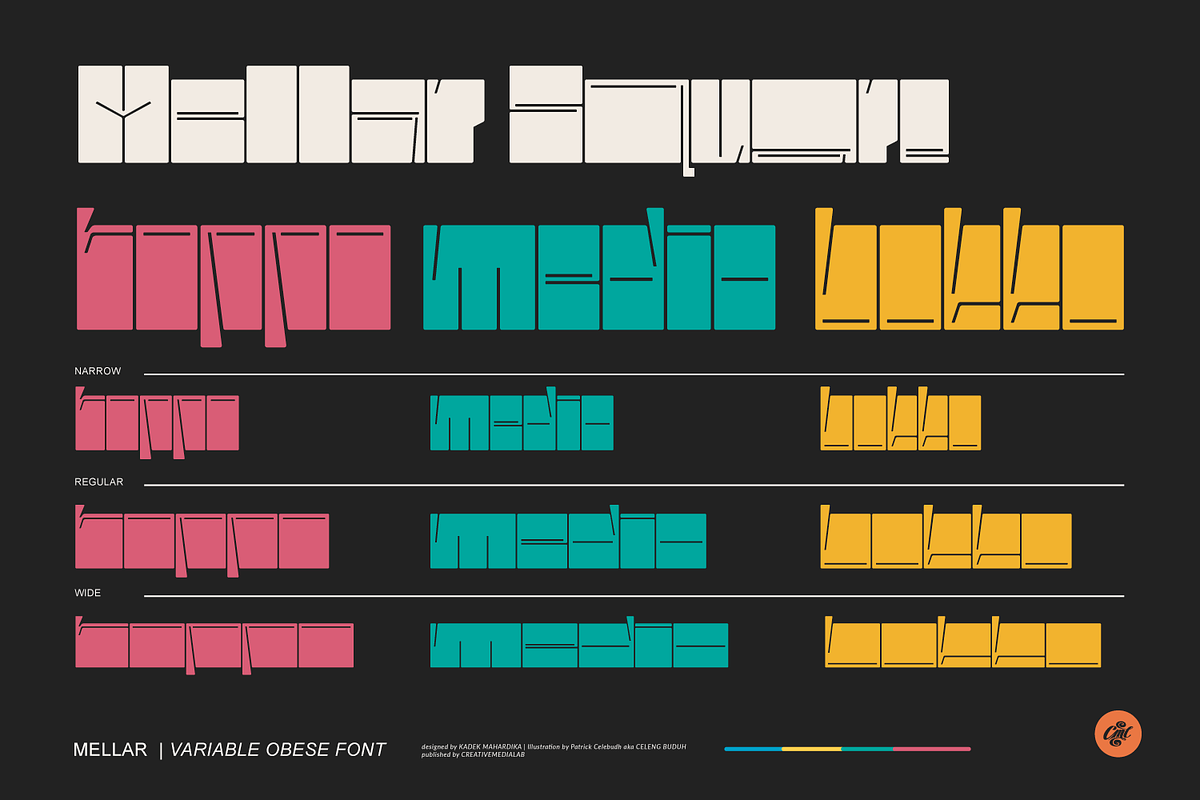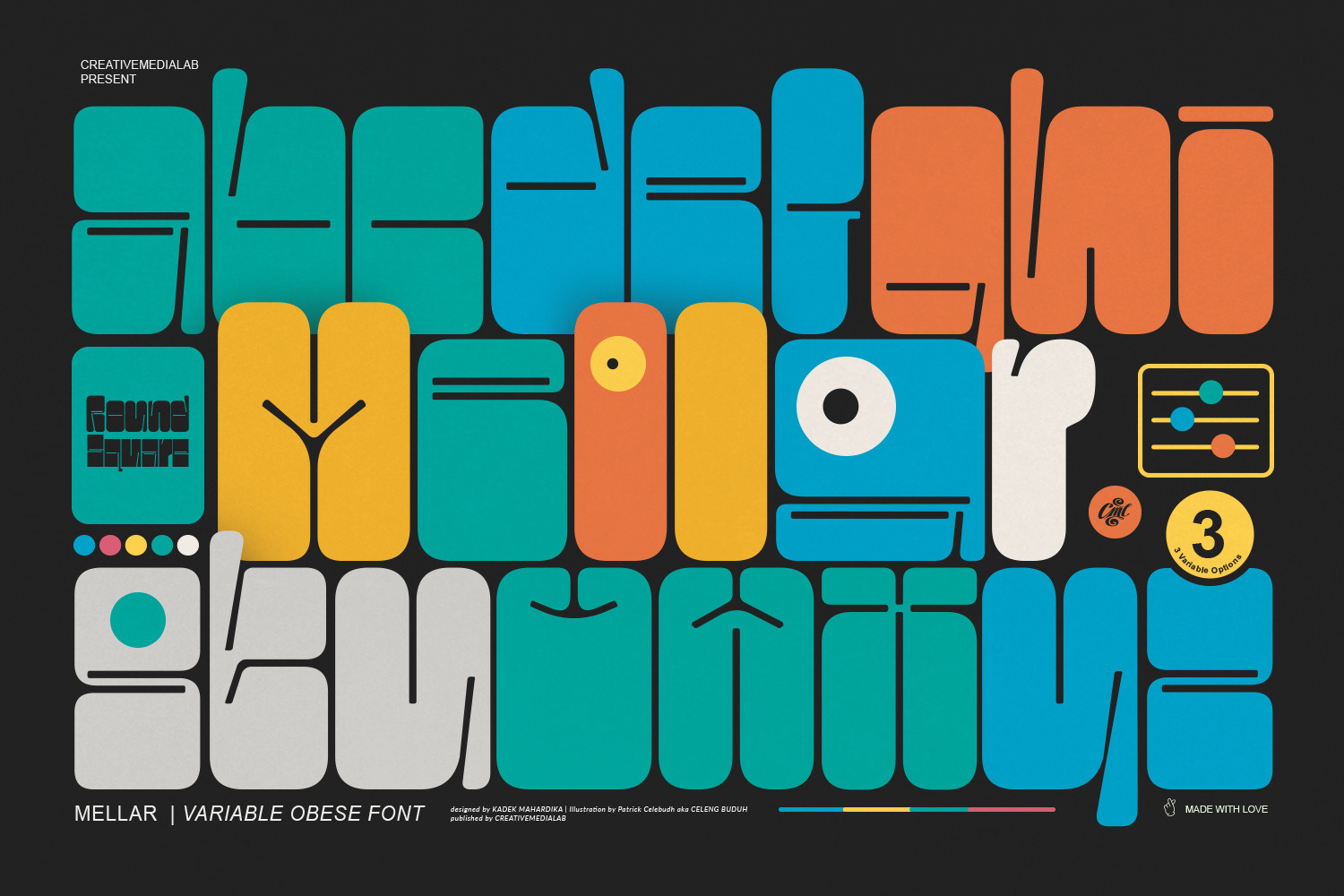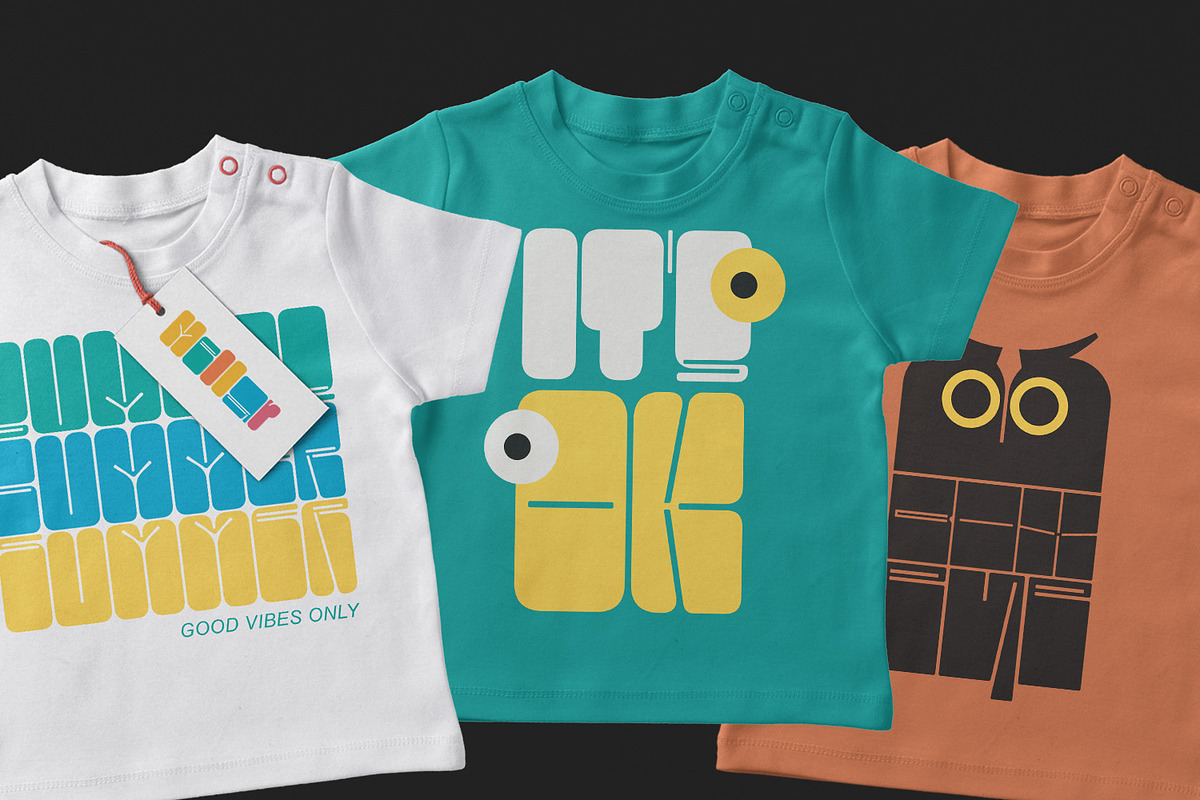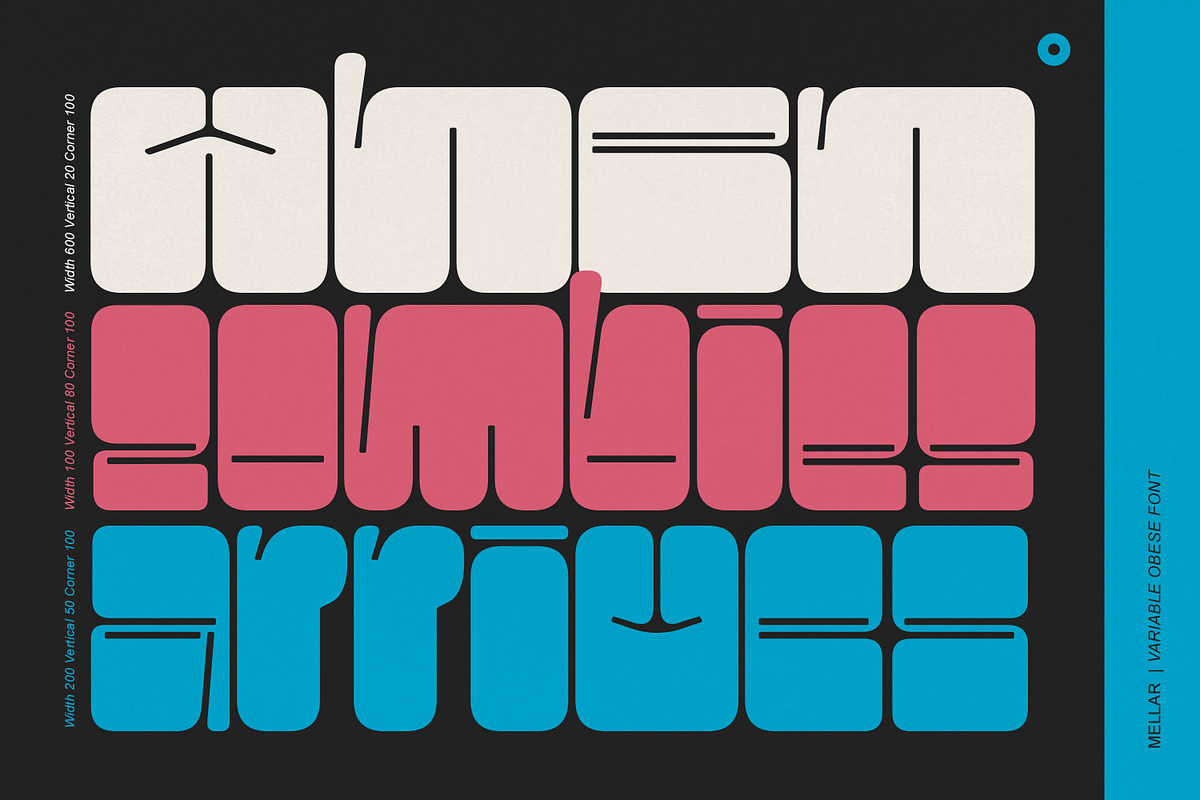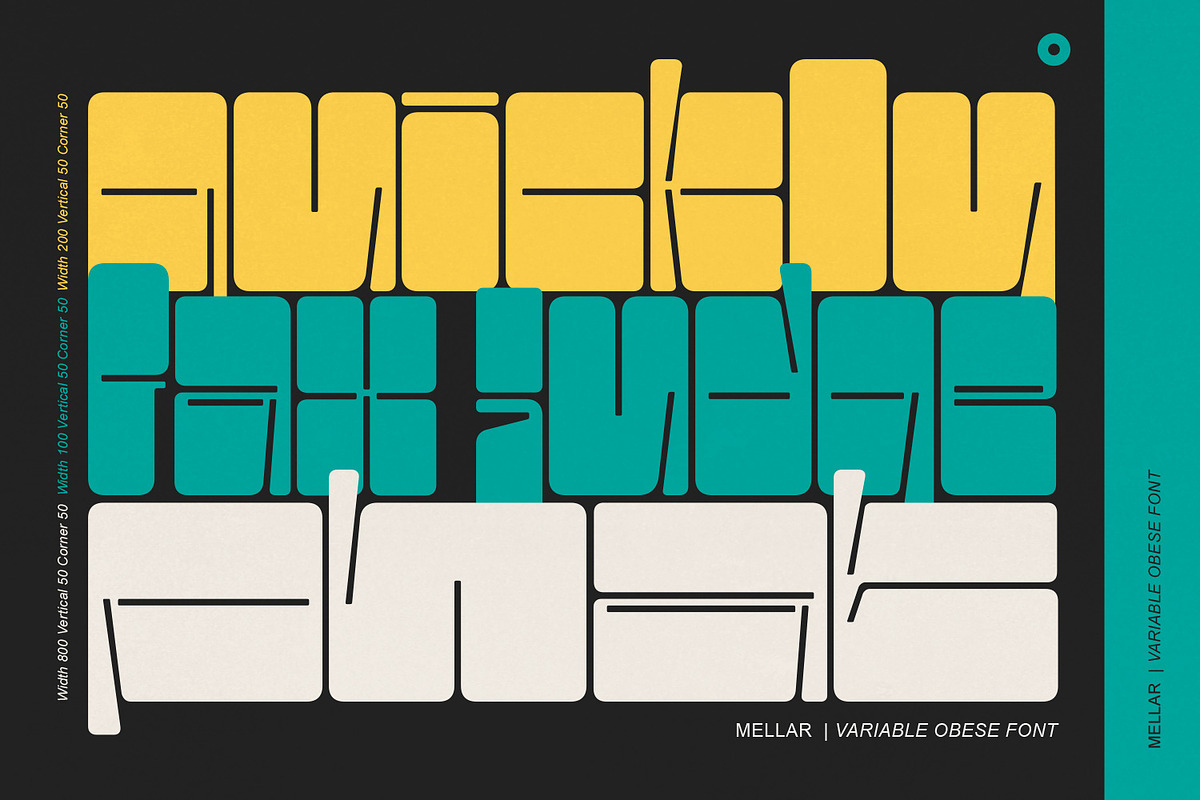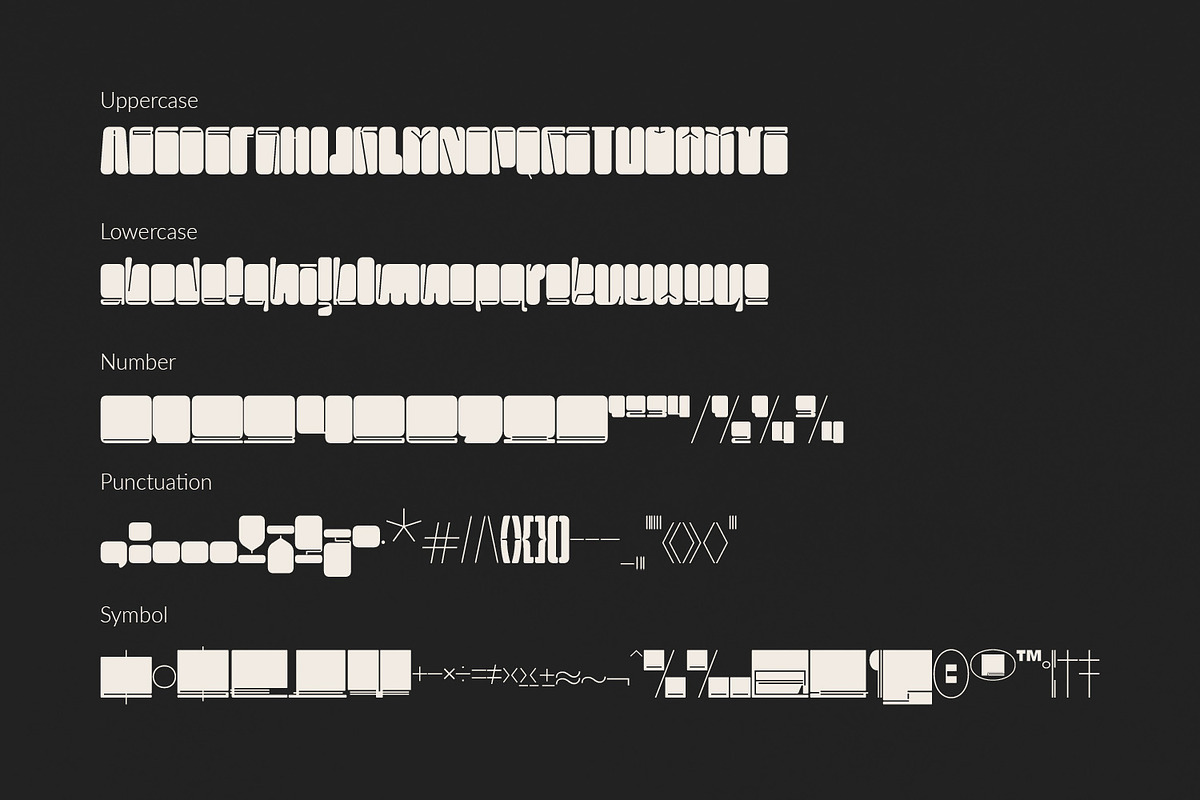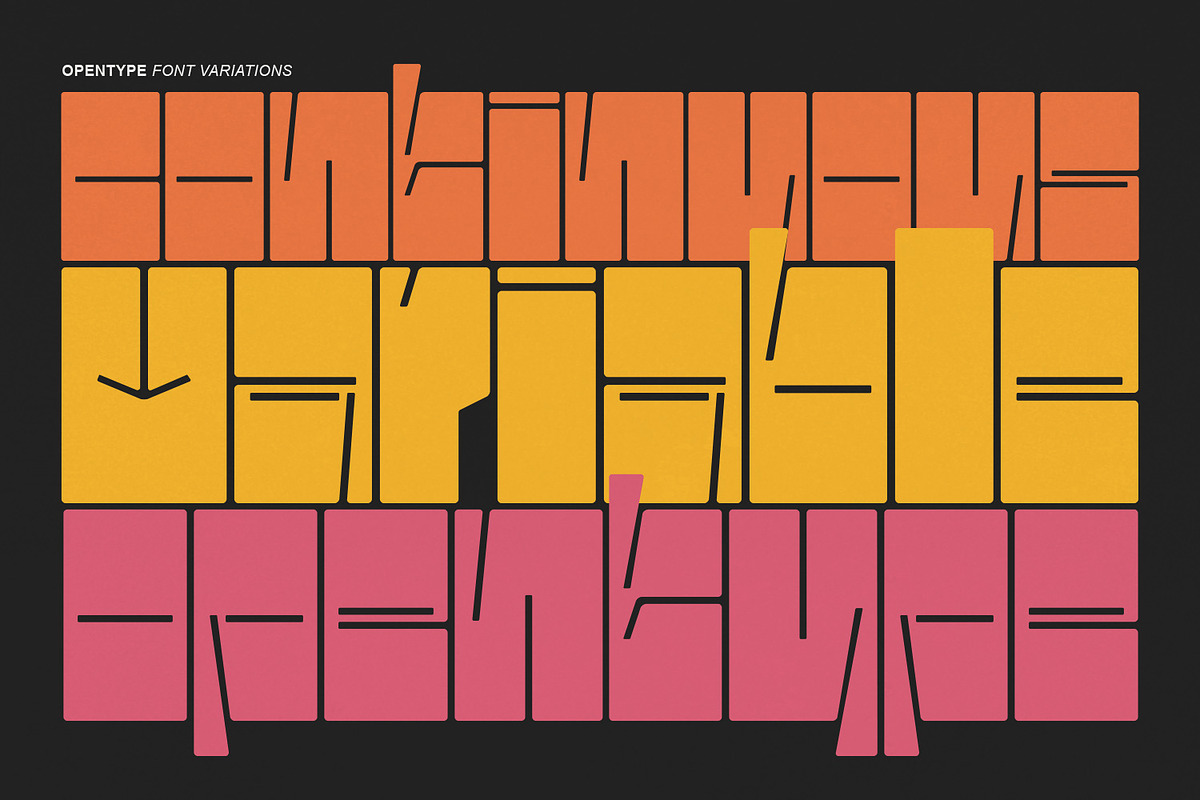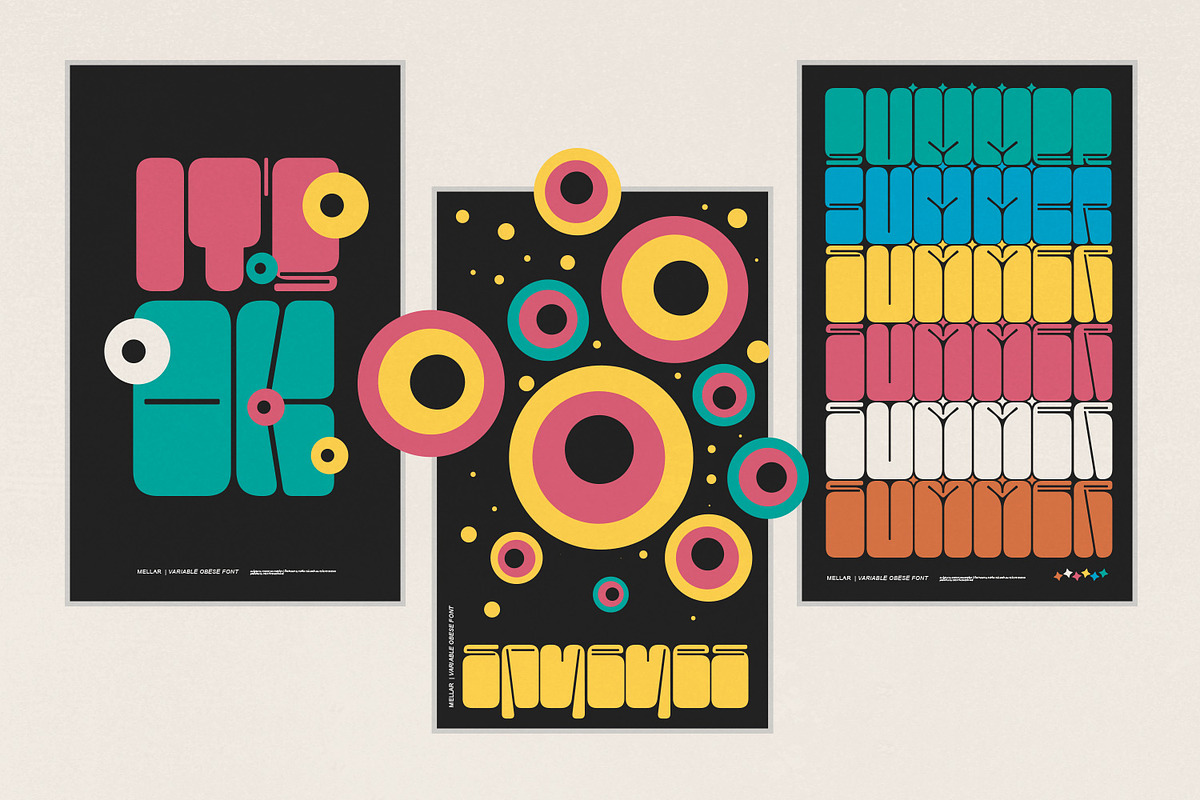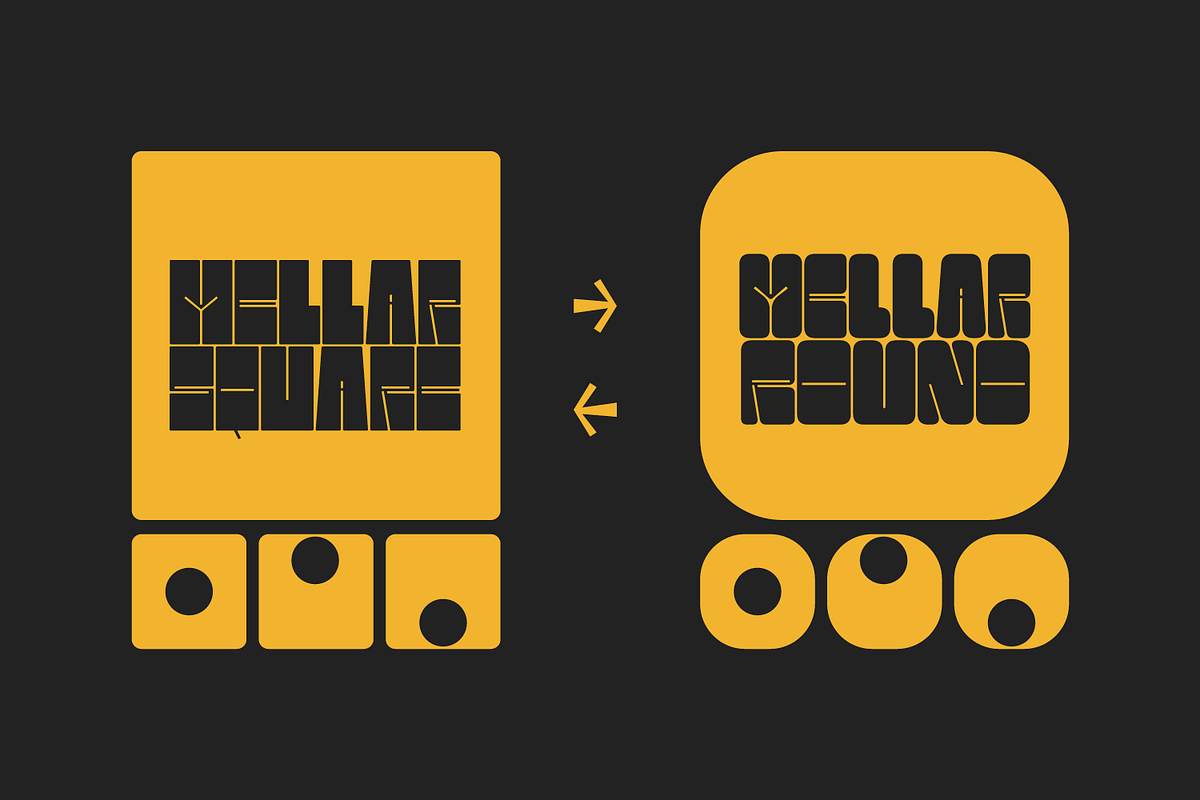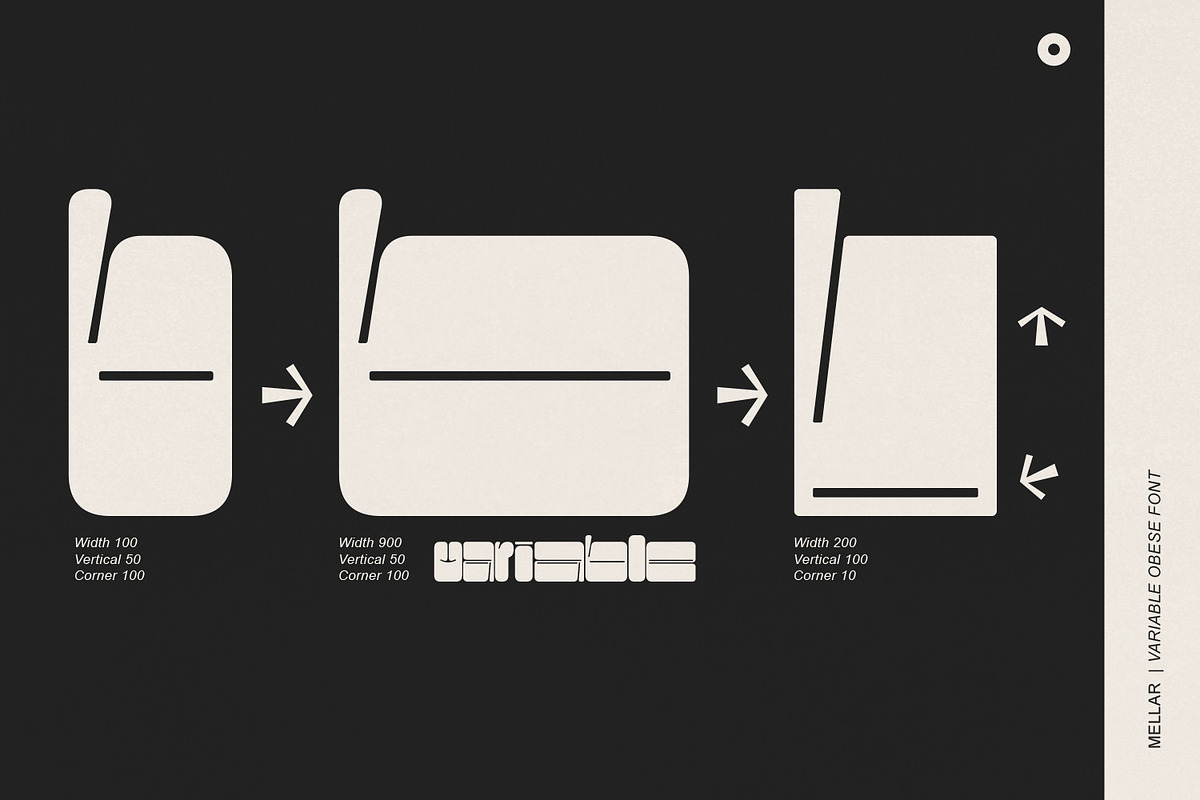
Mellar - Variable Obese Font
We are introducing Mellar, a Variable display font.
Mellar is an obese font with a simple and bold modern look.
It consists of 2 styles: round and square, also three widths on each type: Toppo - Medio - and Botto.
Mellar is a variable font, officially known as Open-Type Font Variations. You can generate many styles with the three available slider axes.
Mellar will add fresh fun vibes to your designs. This font is perfect for clothing, book covers, titles, etc.